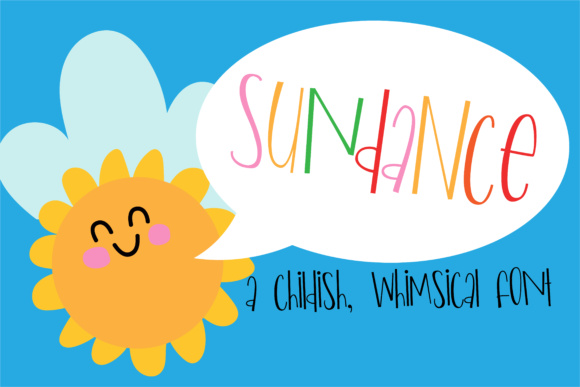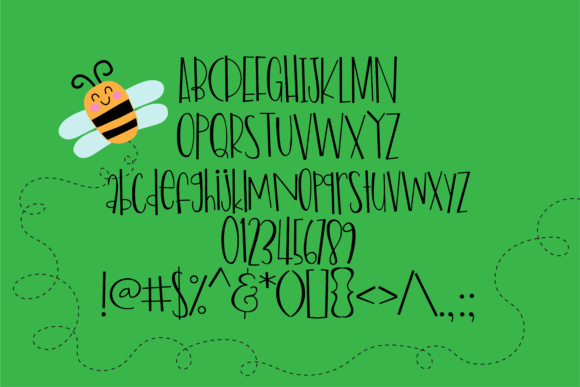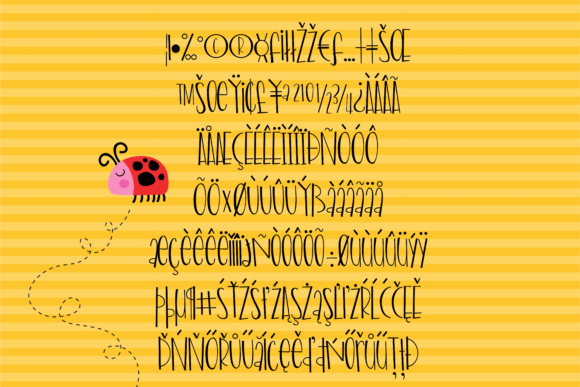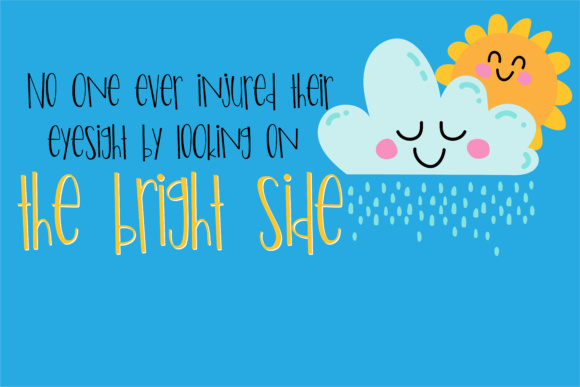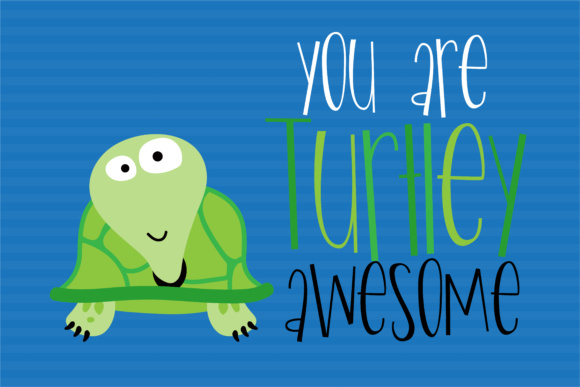
Sundance Font
About Sundance Font
Sundance is a childish and impish handwritten font, perfect for giving your designs a more youthful and playful look. This font has no real descenders and is a bit condensed, so it works well as a stylish headline to your work.